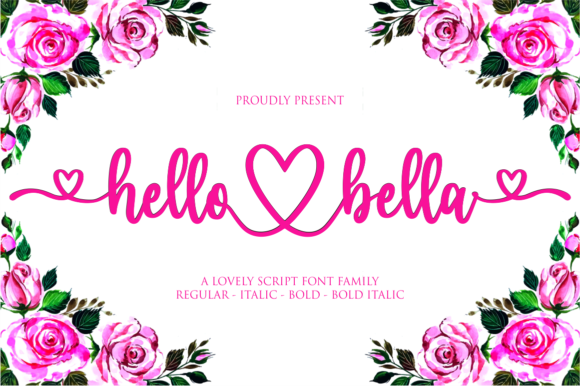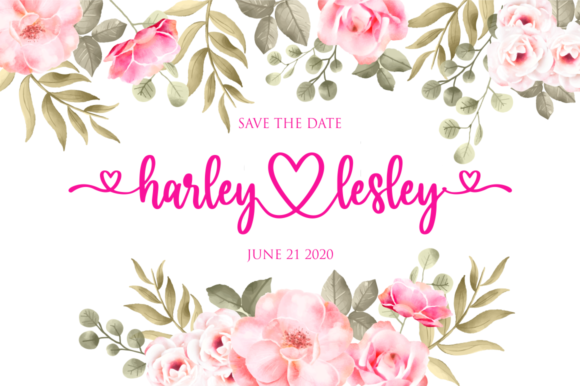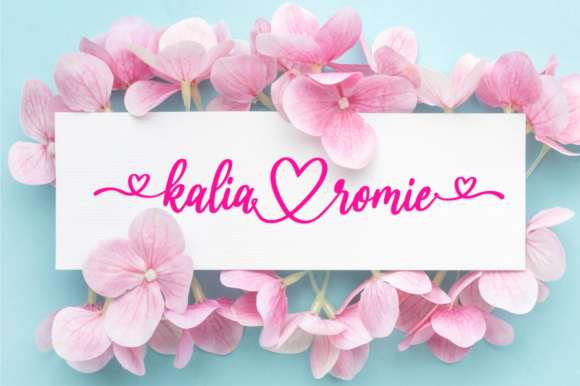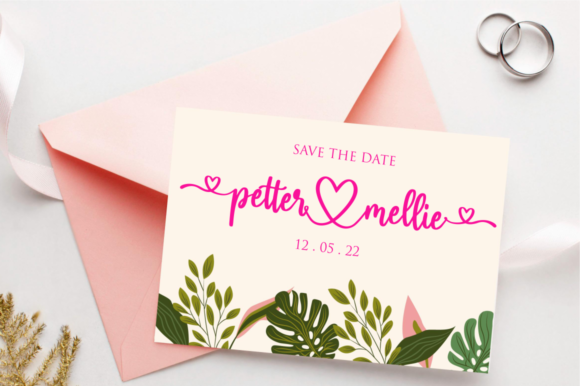
Hello Bella Font: Romantic Script for Wedding & Logo Design
About the Hello Bella Font
Step up your design game with Hello Bella Font, a font that exudes confidence and style. Hello Bella is a beautiful handwritten font with a romantic look. Add this font to your creative ideas and notice how it will make them stand out!
Hello Bella’s romantic aesthetic makes it ideal for projects requiring a touch of elegance and femininity. It excels in headlines, short text blocks on invitations or social media graphics, and branding elements where a delicate, handcrafted feel is desired. Avoid using it for body text or lengthy paragraphs; its script nature hinders readability in extended passages.
Consider pairing Hello Bella with a clean sans-serif like Montserrat for a modern contrast, or a classic serif like Garamond for a more traditional feel. For a playful touch, a slightly geometric sans-serif such as Lato could work well.
The overall personality of Hello Bella is romantic and sophisticated, lending itself to brands focused on beauty, fashion, weddings, or luxury goods. Its delicate swashes add a personal touch without overpowering the design.